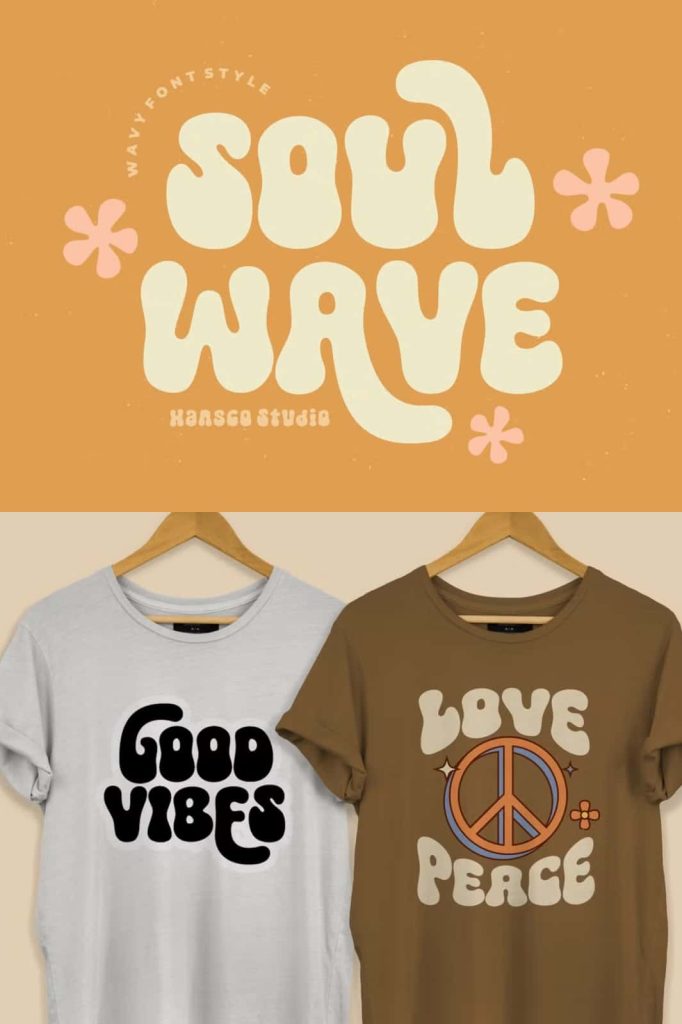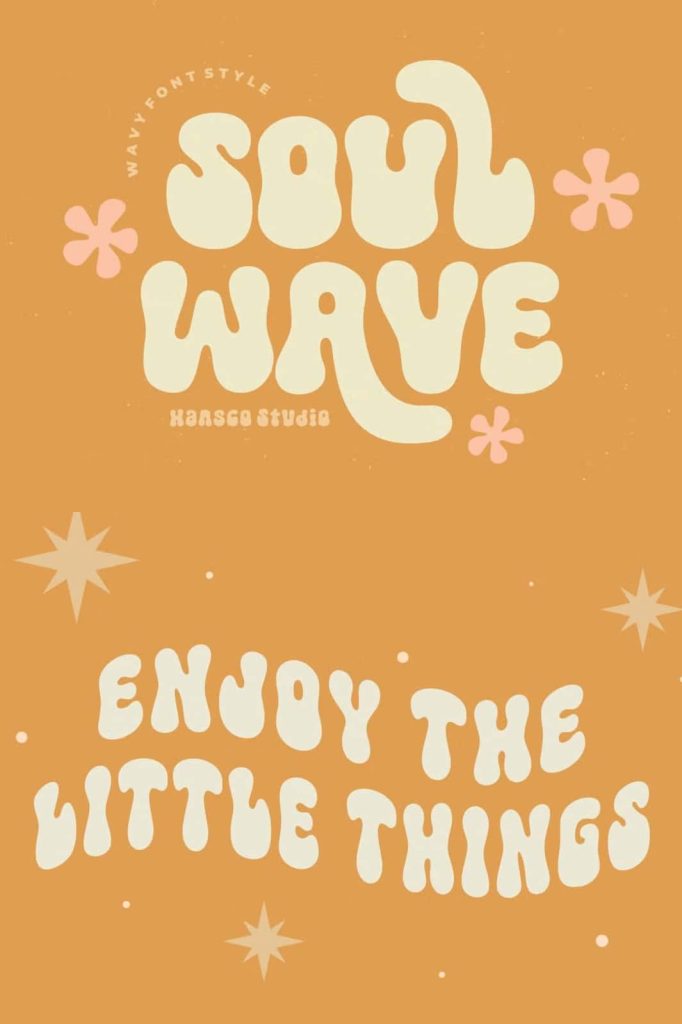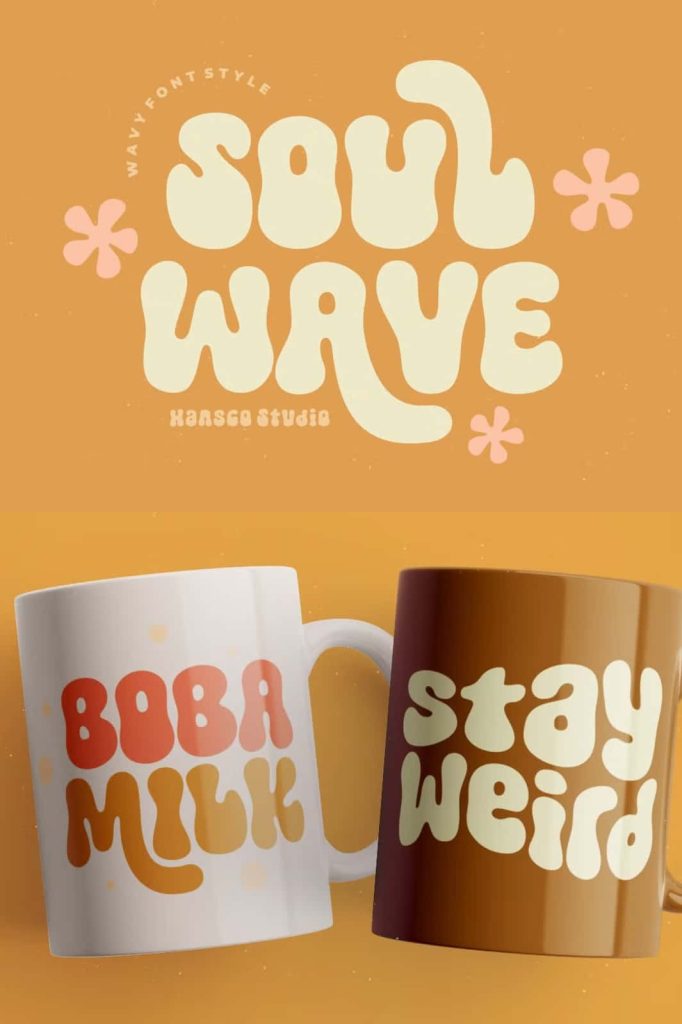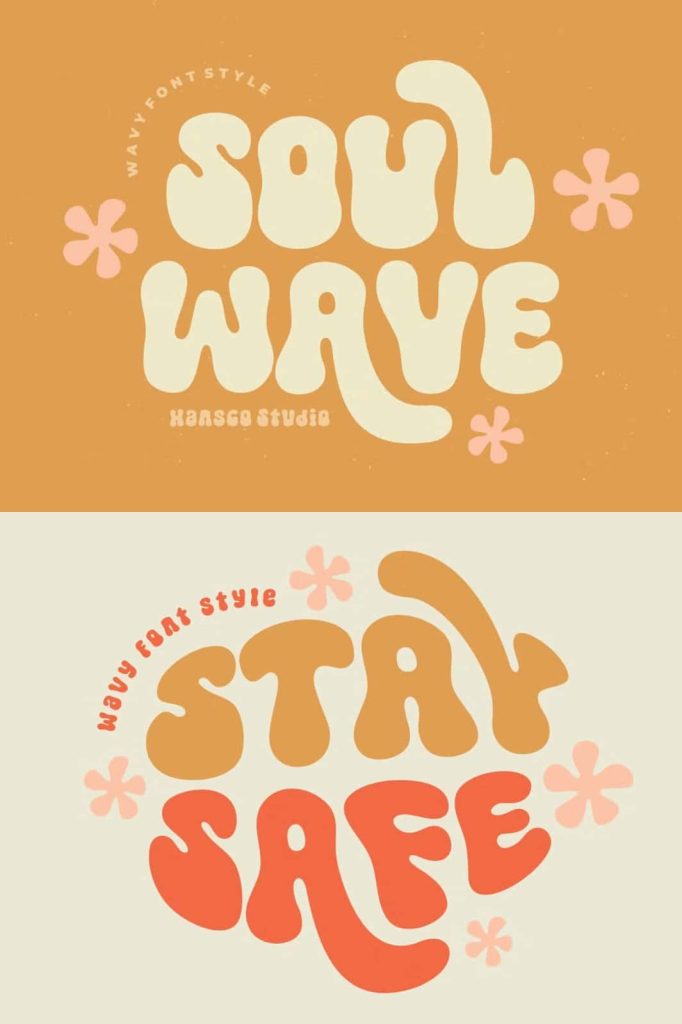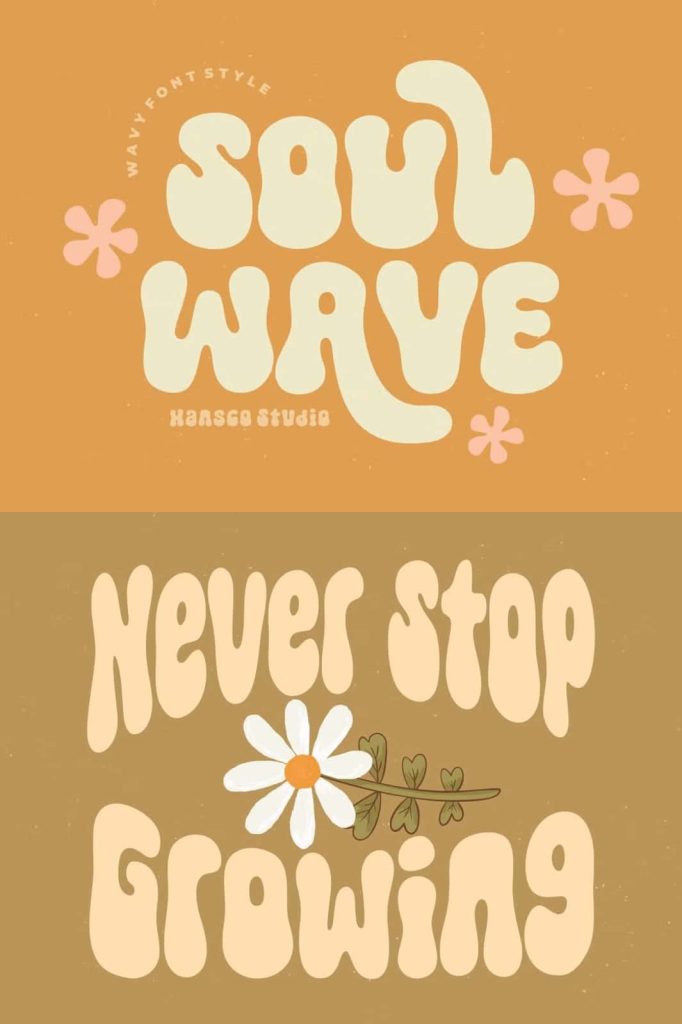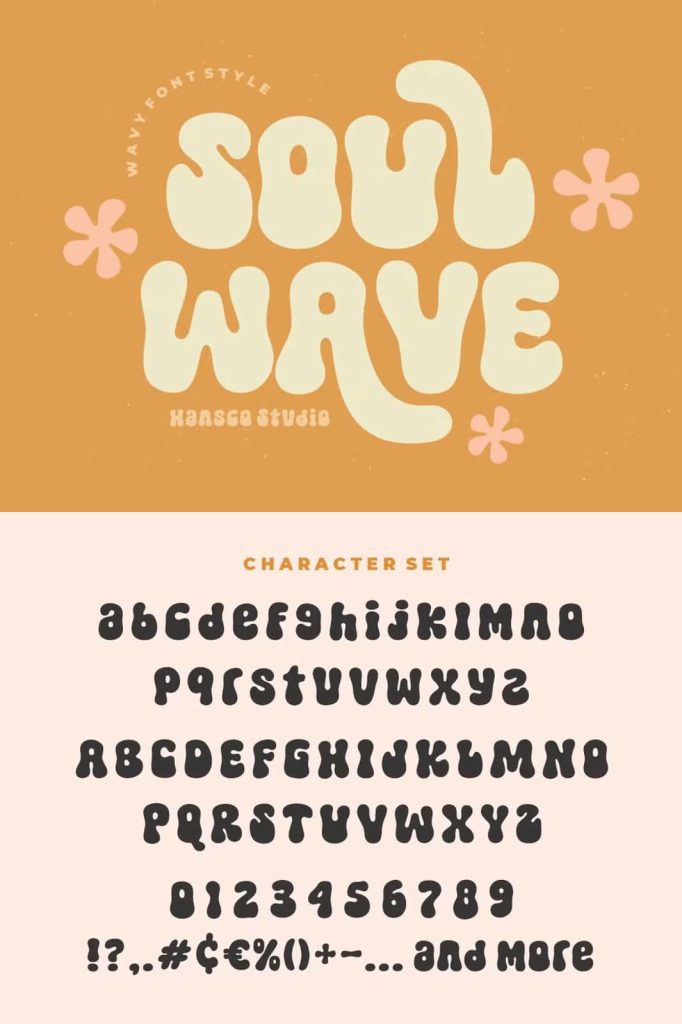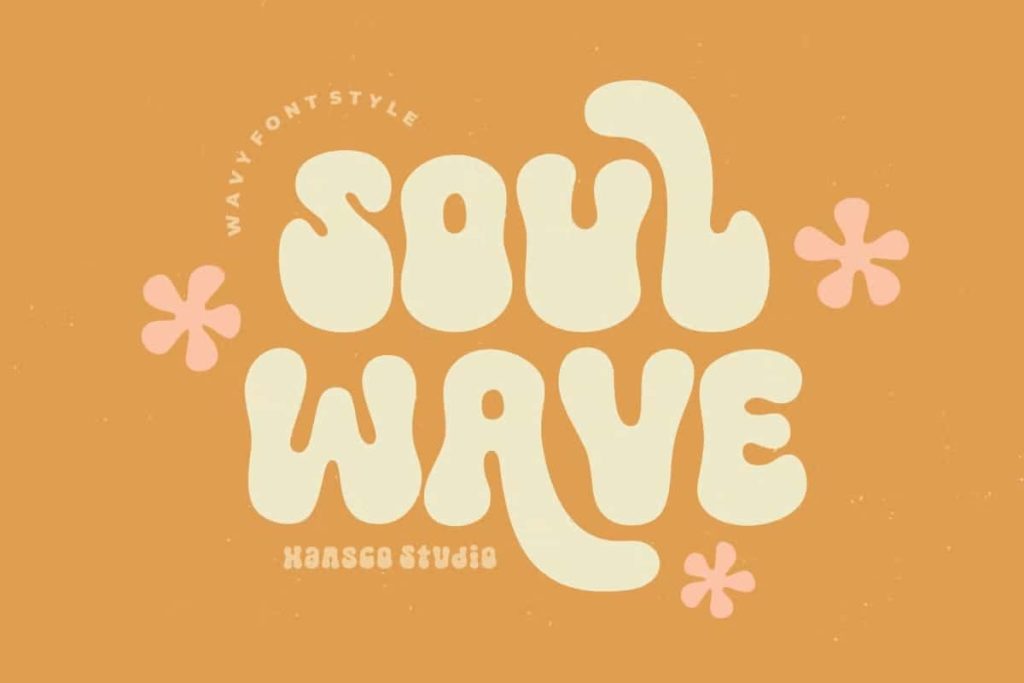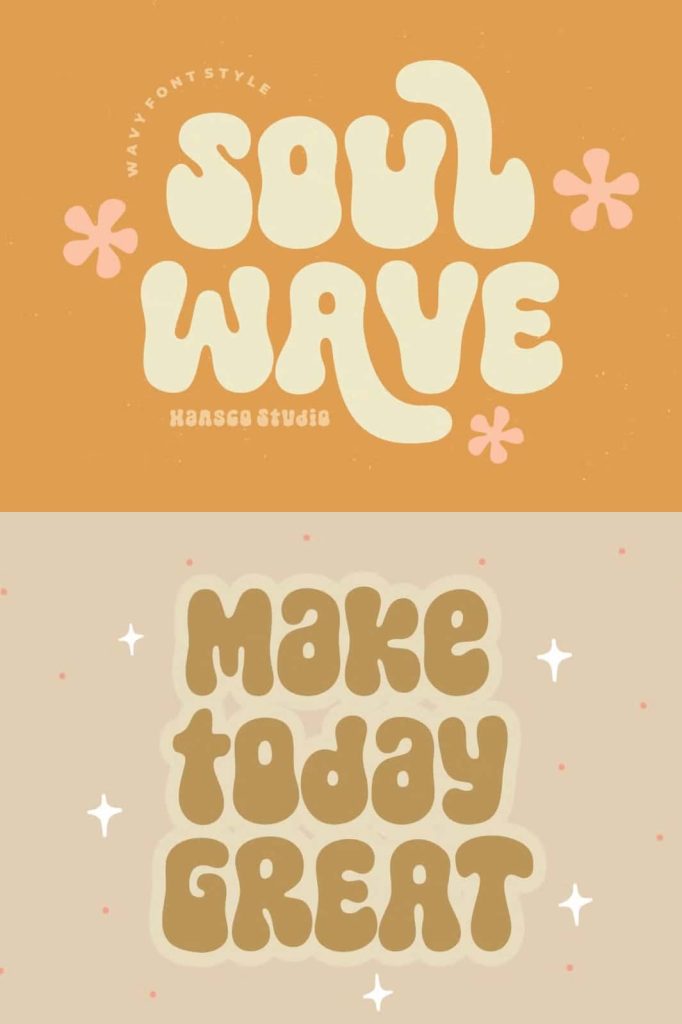
Soul Wave – A Retro Groovy Display Font with Wavy Style
Soul Wave is a vibrant retro groovy display font designed to bring bold personality and playful energy to your typography. This unique typeface features expressive wavy letterforms that instantly capture the spirit of vintage design. Inspired by retro aesthetics from the 60s and 70s, Soul Wave allows designers to create eye-catching typography that feels nostalgic, fun, and visually dynamic.
The font embraces the groovy design movement that celebrates flowing shapes, exaggerated curves, and creative lettering styles. Each character in Soul Wave bends and moves with rhythmic motion, creating a lively visual experience. This movement gives your text a distinctive retro vibe that stands out in headlines, posters, branding, and creative graphic compositions.
Designers who want to add a bold retro personality to their projects will find Soul Wave to be a powerful display font. It transforms ordinary text into artistic lettering that immediately attracts attention and communicates playful creativity.
A Retro Groovy Display Font with Unique Character
Soul Wave stands out because of its distinctive wavy structure. Unlike traditional display fonts, this typeface embraces fluid movement and organic curves. The letters appear to flow like waves, giving the font a lively rhythm that makes every word feel energetic and expressive.
This creative approach to typography helps designers achieve a strong visual presence in their layouts. The bold shapes allow the font to function as a centerpiece in graphic design projects, especially when used in large titles and display text.
The retro inspiration behind Soul Wave reflects the playful typography that defined classic music posters, vintage advertisements, and psychedelic artwork. By capturing that design spirit, the font brings a nostalgic yet fresh visual tone to modern creative projects.
Create Eye-Catching Retro Headlines
One of the greatest strengths of Soul Wave is its ability to create bold and unforgettable headlines. Because the letterforms feature exaggerated curves and wavy structures, the font naturally draws the viewer’s attention. Designers can use this retro groovy display font to build strong focal points within posters, banners, or promotional graphics.
When used in headlines, Soul Wave adds personality and movement that flat typography simply cannot achieve. The playful shapes help communicate energy, creativity, and artistic freedom. This makes the font particularly effective for designs that aim to feel fun, expressive, and nostalgic.
Whether you are designing retro event posters or social media graphics, Soul Wave can elevate your typography and turn simple text into engaging visual elements.
Perfect Design Applications
- Retro poster design
- Vintage inspired branding
- Music festival graphics
- Creative social media posts
- Groovy event flyers
- Retro logo design
- Album covers and music artwork
- Creative quote graphics
- Product packaging with vintage style
Bring Retro Personality to Branding
Brands that want to communicate creativity and individuality often rely on bold typography to build memorable identities. Soul Wave provides exactly that through its playful and unconventional letterforms. The wavy shapes create a strong visual identity that feels energetic and distinctive.
This retro groovy display font works especially well for brands in creative industries such as music, art, fashion, and lifestyle products. It helps businesses establish a visual voice that feels fun, expressive, and nostalgic.
Designers can use Soul Wave for logo concepts, packaging titles, product labels, and marketing graphics. Because the font naturally draws attention, it helps important messages stand out clearly in promotional materials.
Inspired by Vintage Groovy Typography
The design of Soul Wave celebrates the iconic typography styles that emerged during the retro era. Designers during that time experimented with exaggerated shapes, flowing lettering, and psychedelic visual elements. Soul Wave captures this artistic experimentation and adapts it for modern graphic design.
The wavy motion of the letters creates a sense of rhythm and creativity that reflects the carefree spirit of retro design culture. At the same time, the font remains clear and structured enough to work effectively in modern design layouts.
This combination of vintage inspiration and contemporary usability makes Soul Wave an exciting tool for designers who want to blend nostalgia with modern creativity.
A Display Font That Elevates Creative Ideas
Soul Wave was masterfully designed to help creative ideas reach their highest visual potential. The expressive shapes allow designers to experiment with typography in exciting ways. Whether you are creating artistic posters, bold branding, or playful social media graphics, this font provides the visual energy needed to make your designs memorable.
If you want a retro groovy display font that captures attention and adds vibrant personality to your work, Soul Wave is an excellent choice. Use it to create bold headlines, imaginative posters, and unforgettable branding designs that celebrate the timeless charm of retro typography.